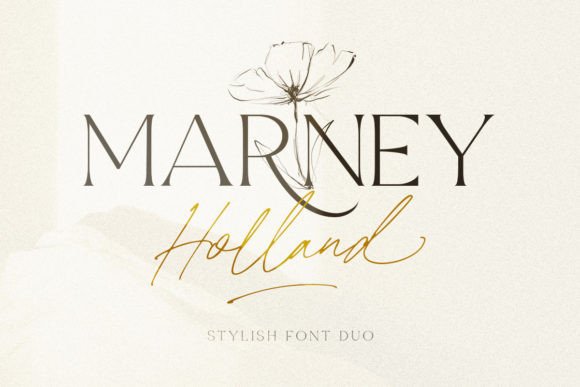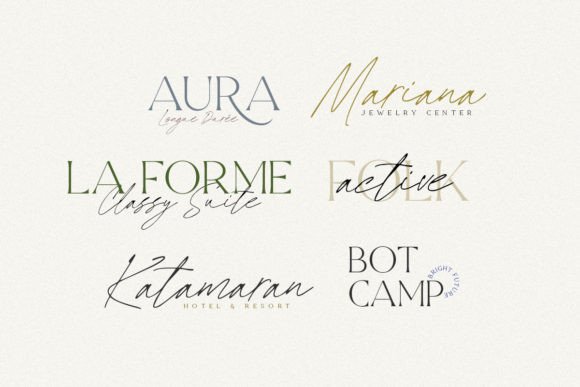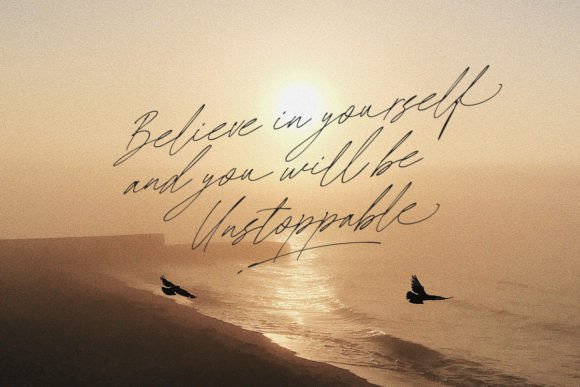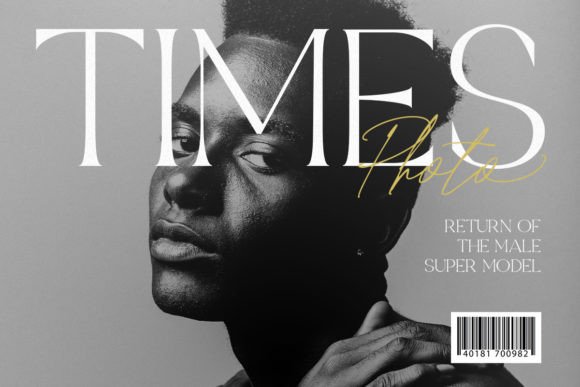
Marney Holland Font: Elegant Serif & Script for Wedding Font & Logo Design
About the Marney Holland Font
Make a bold statement with Marney Holland Font, a powerful and memorable font. Marney Holland is a font duo that contains a stylish signature script and an elegant serif. You can use this font for any purpose such as branding, logo, or even wedding invitations. This font is timeless and versatile. This font is PUA encoded, which means you can access all of the glyphs and swashes with ease!
Marney Holland’s elegant serif and script pairing excel in branding projects requiring a touch of sophistication, particularly logos, short headlines, and wedding stationery. The script works beautifully for signatures and short text elements, while the serif provides a strong, legible foundation for supporting information. Avoid using the script for lengthy body text; its decorative nature compromises readability in extended passages.
The font duo’s overall personality is refined and romantic, making it unsuitable for projects needing a bold or playful feel. It pairs well with clean sans-serif fonts like Lato or Montserrat for a modern contrast, or with a classic serif such as Garamond or Baskerville for a cohesive, timeless aesthetic. A geometric sans-serif could also provide a striking counterpoint, depending on the desired visual effect.
Consider pairing the script with a minimalist sans-serif for a contemporary feel, or using only the serif for applications needing maximum clarity and readability, such as short-form packaging copy. Avoid using it in UI contexts or for extended body text.
Marney Holland Font Usage Examples
Marney Holland Font Example